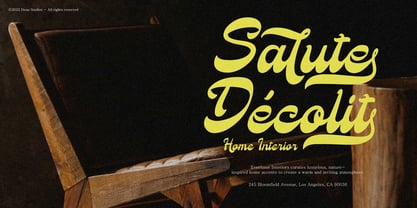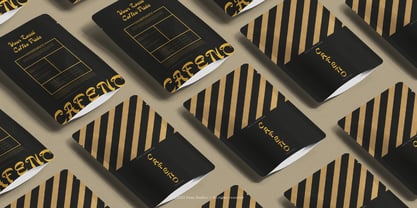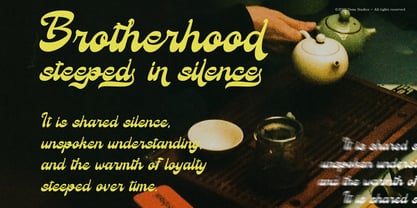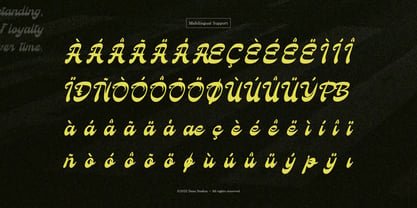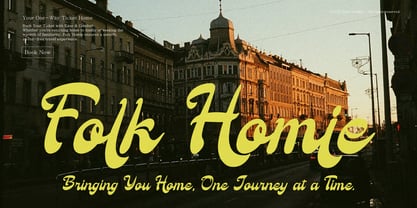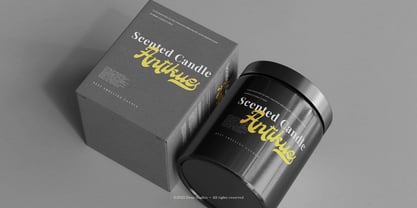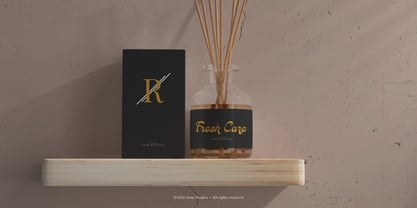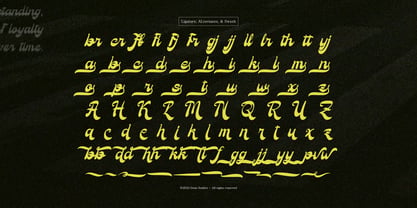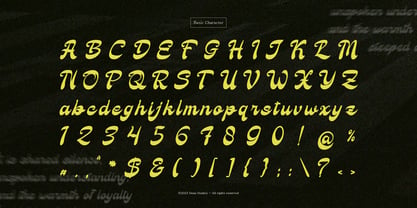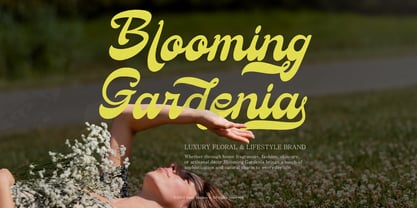
Love Simpathy
Love Simpathy | Bold Handwritten Script, from Denustudios, suitable for any projects such as: logos, branding projects, homeware designs, product packaging, mugs, quotes, posters, shopping bags, t-shirts, book covers, name card, invitation cards, greeting cards, label, photography, watermark, special events, and all your other lovely projects that need Bold Handwritten Script a taste.
• Regular and Italic
• Alternate and Ligature
• Fonts include multilingual support